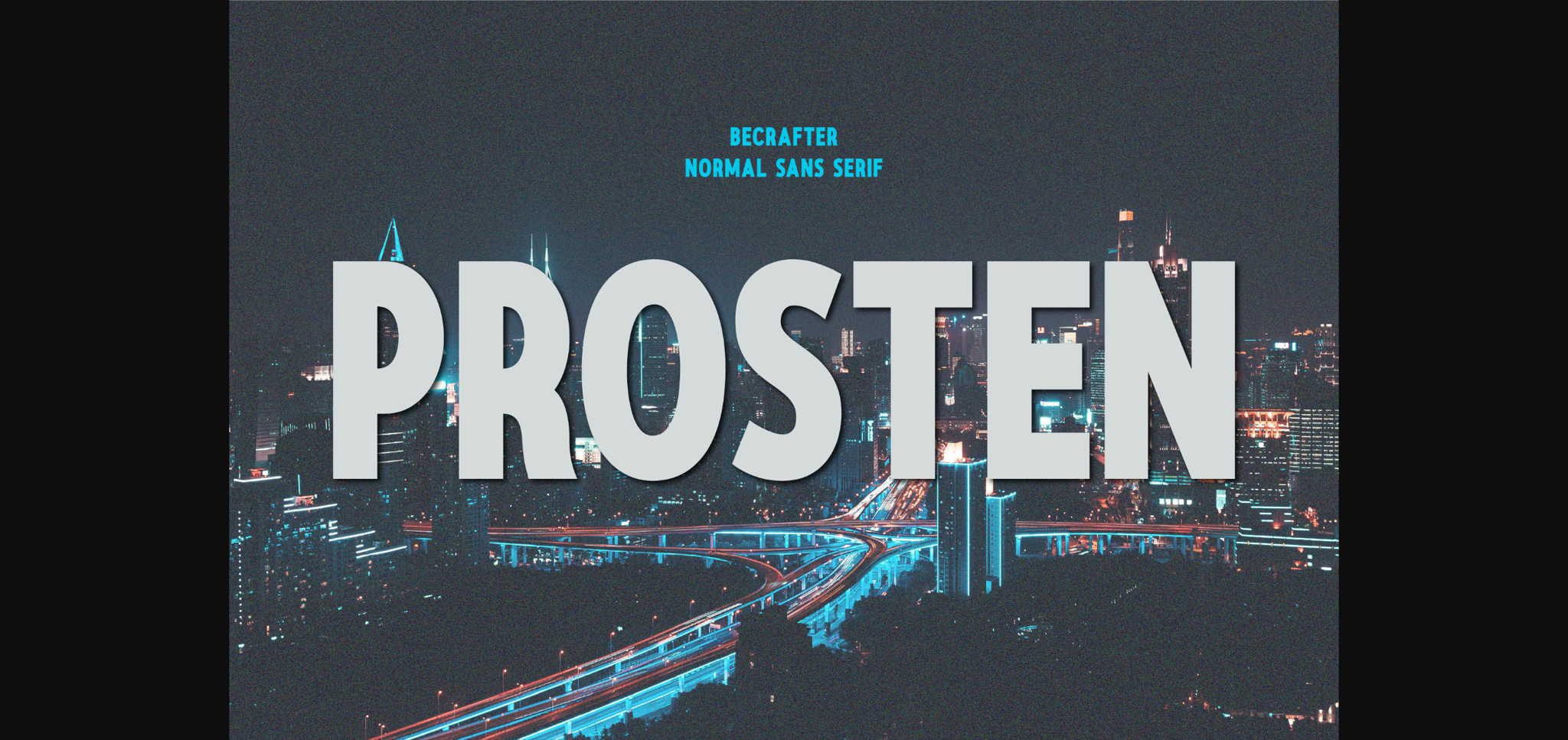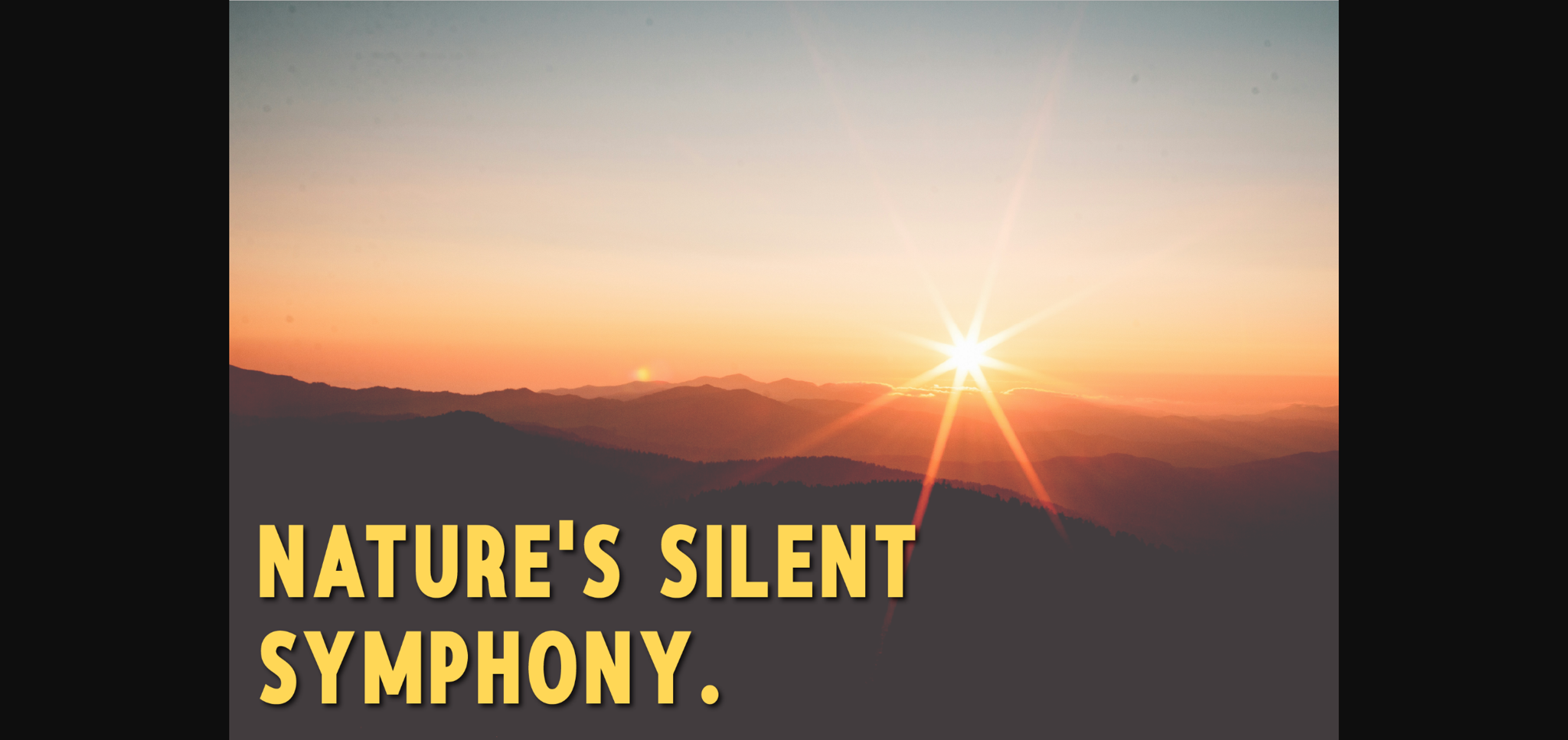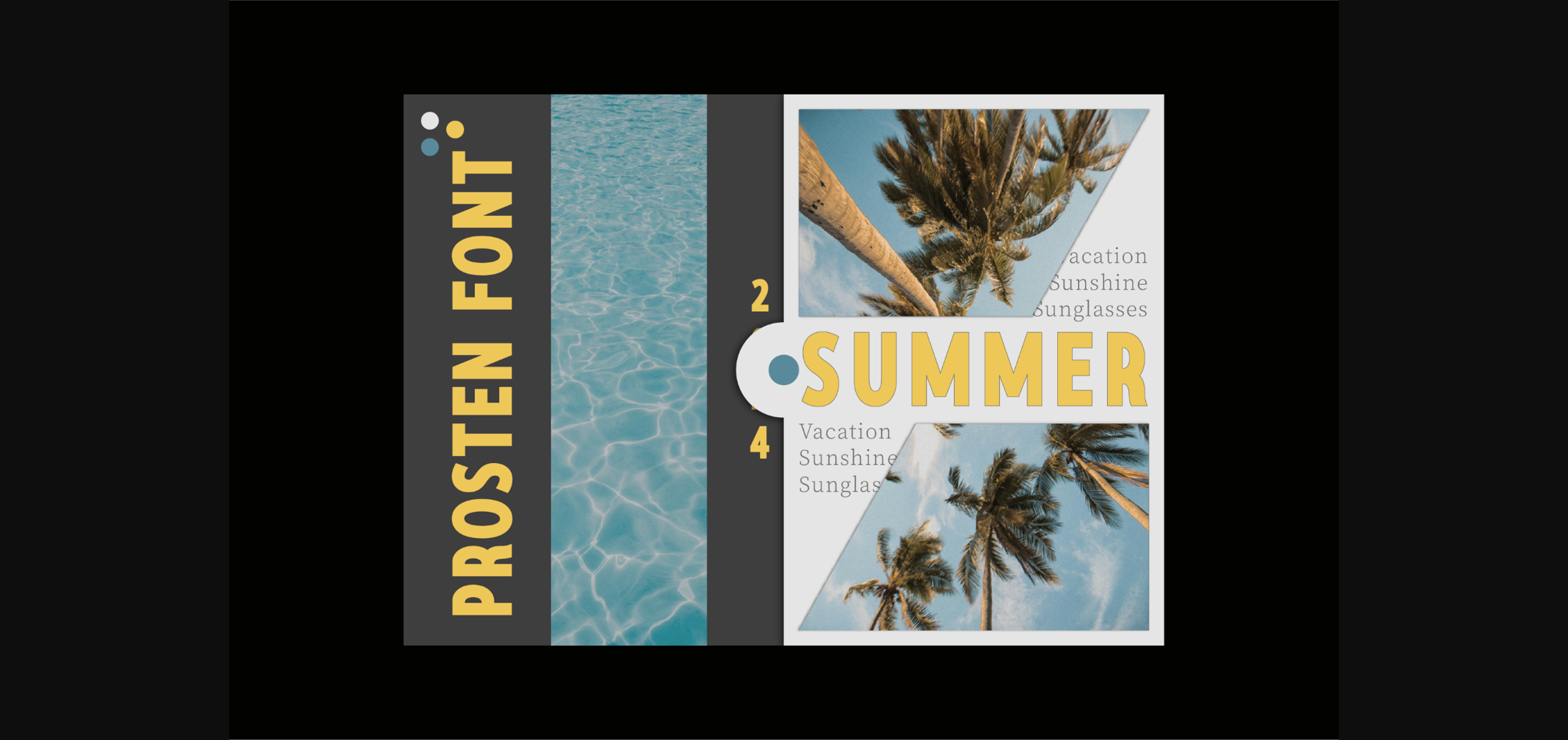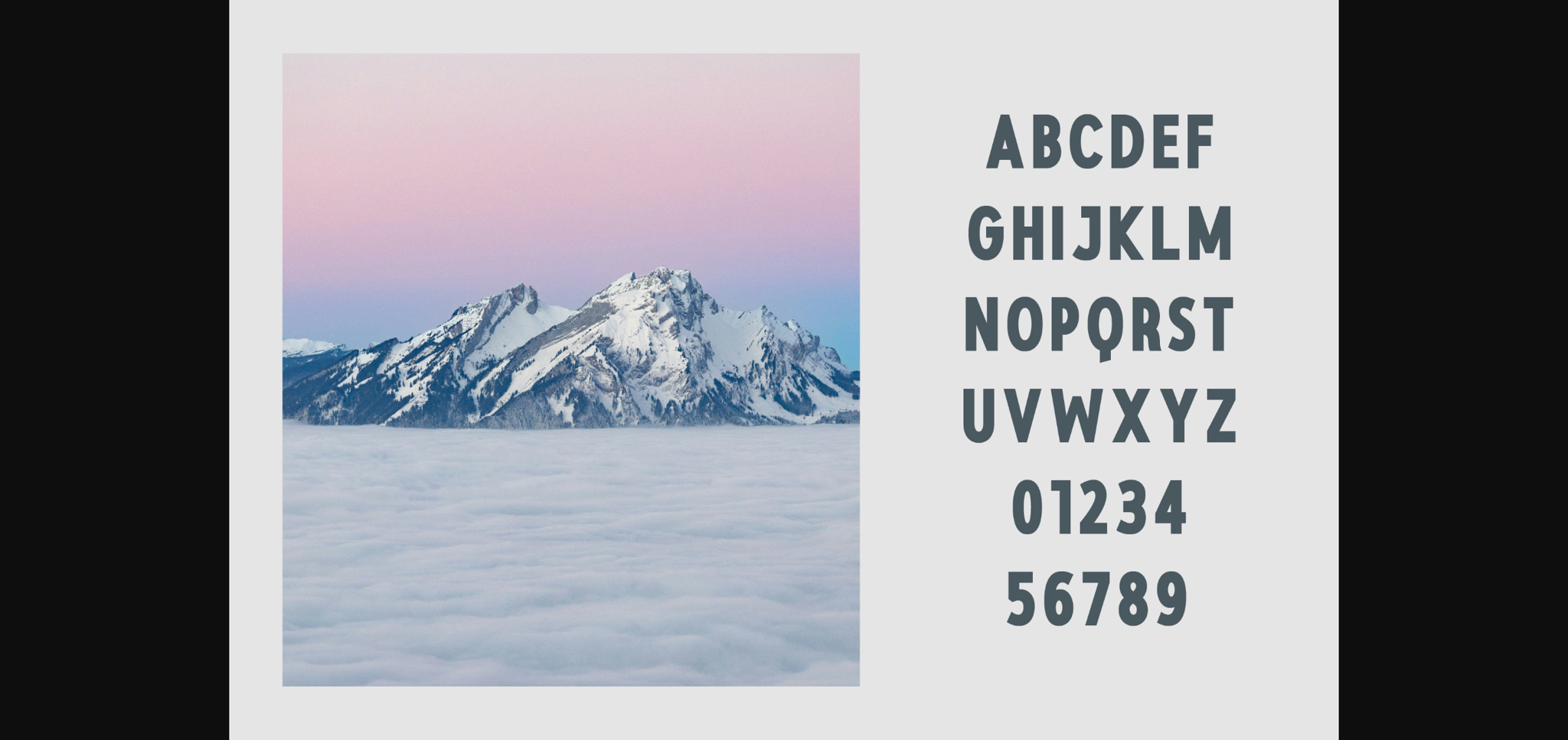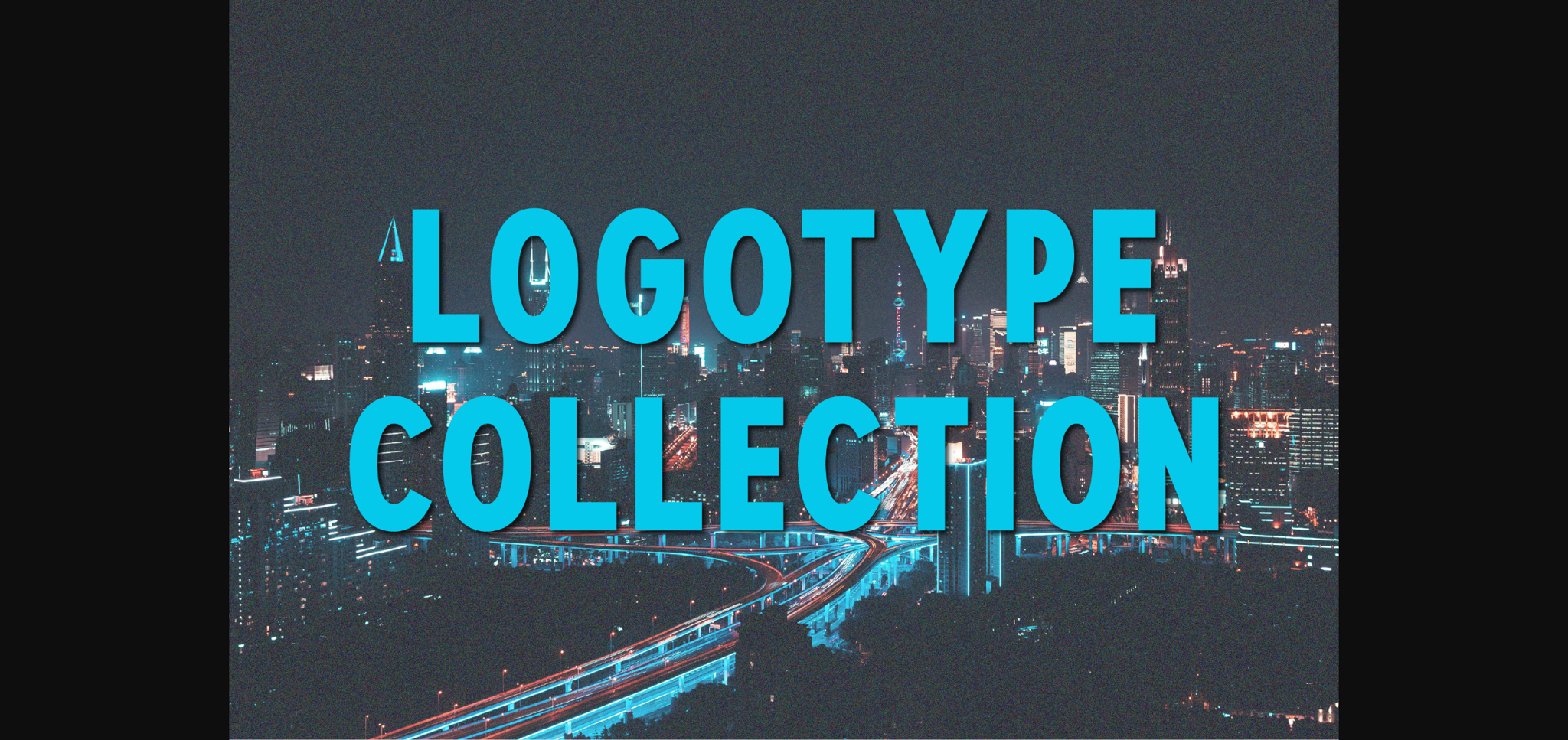
Prosten Font
About Prosten Font
Introducing Prosten, a strikingly bold sans-serif typeface with sophisticated sharp edges. This versatile font is not just visually appealing, it also comes in two convenient file types: .ttf and .otf. Prosten shines in a wide range of applications from sleek magazine layouts and chic invitations to impactful quotes and eye-catching headers, lending a sense of undeniable distinction to any design seeking to captivate attention. Prosten is the perfect creative solution for those seeking to add a touch of elegance and bold emphasis to their work.